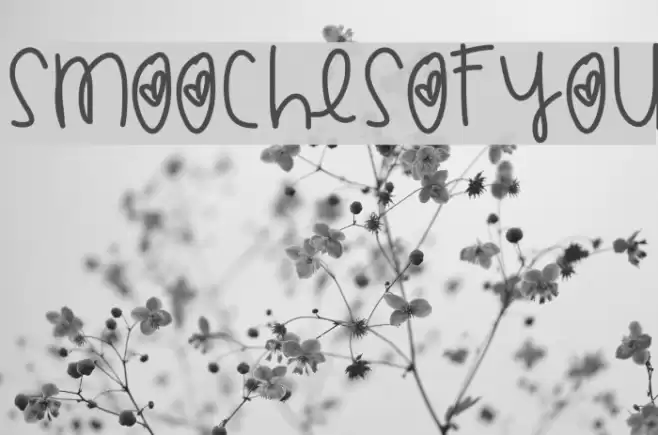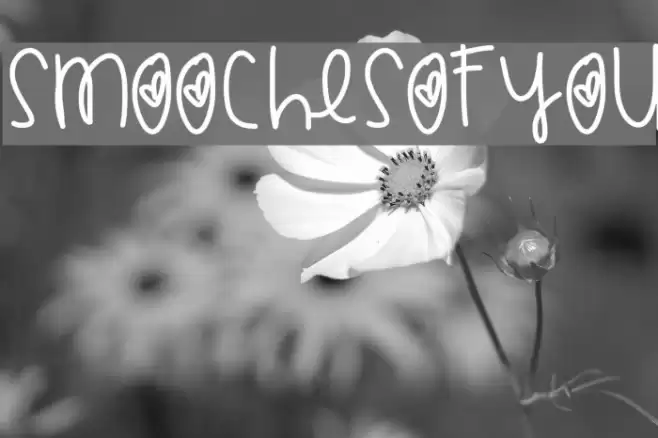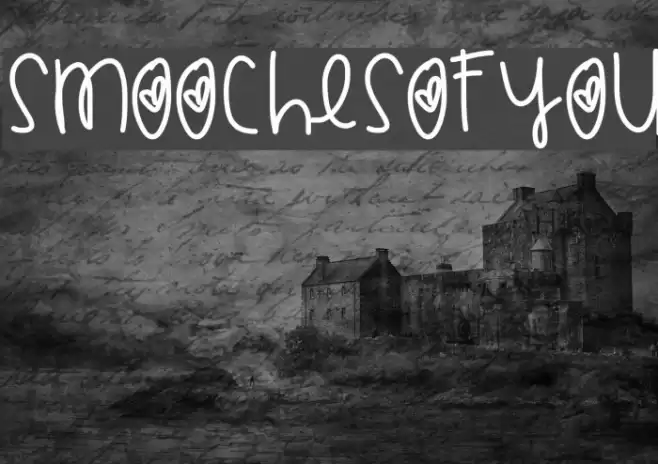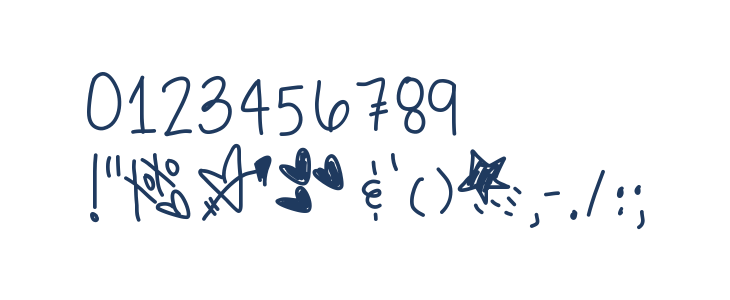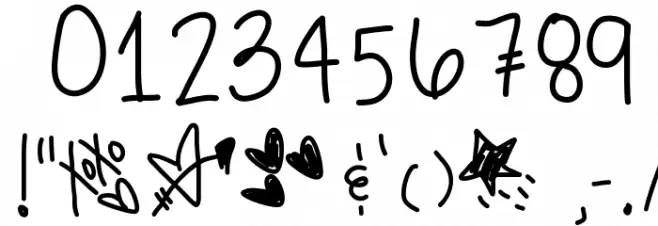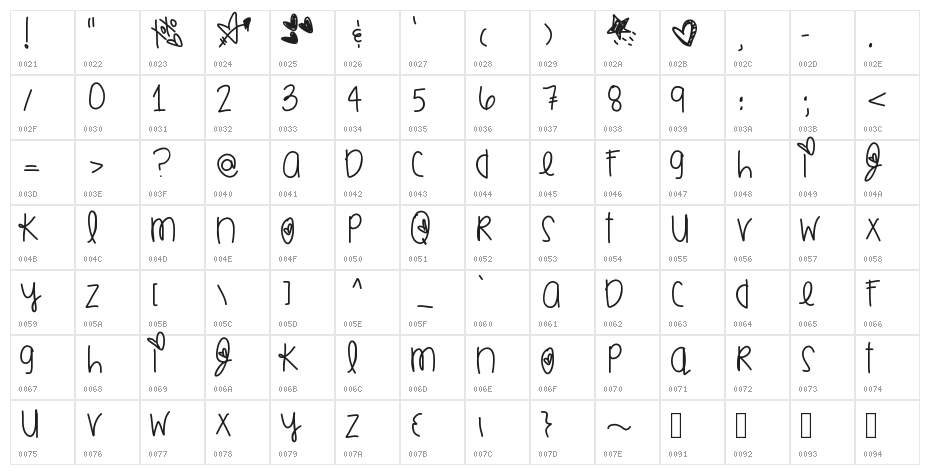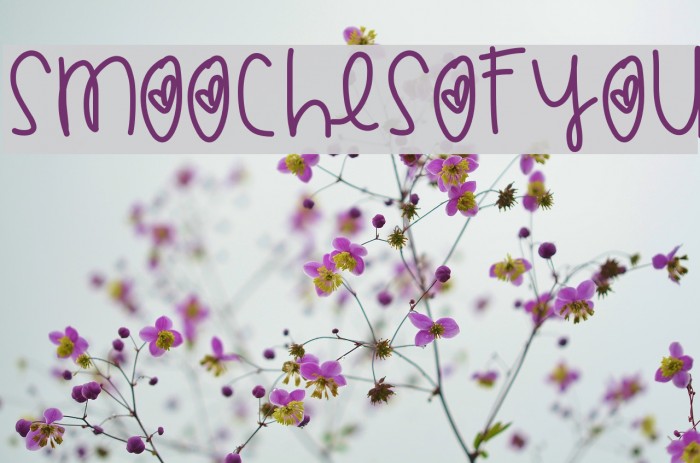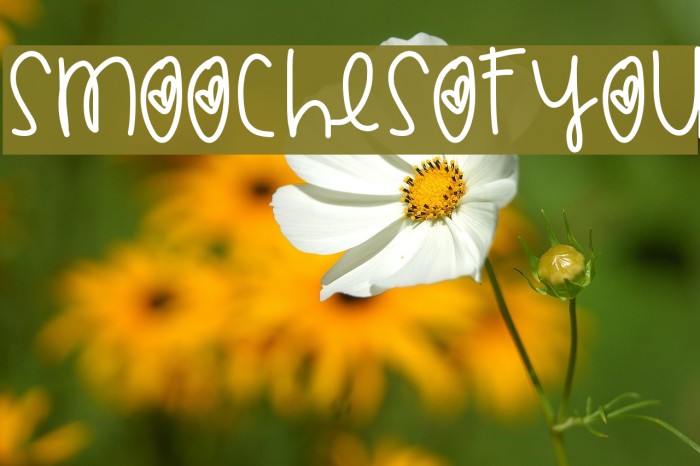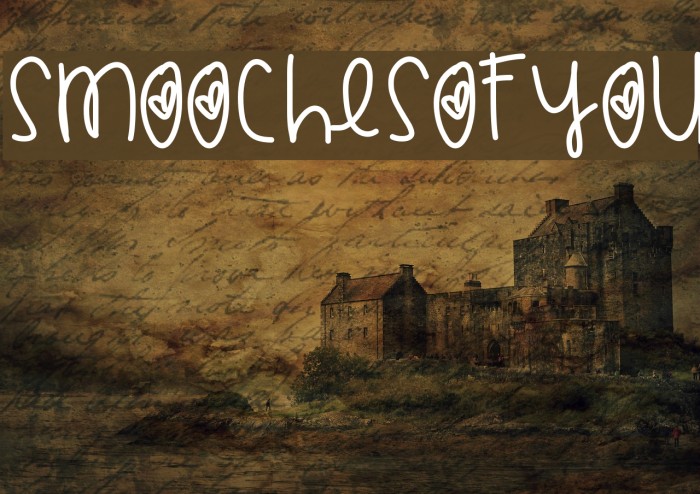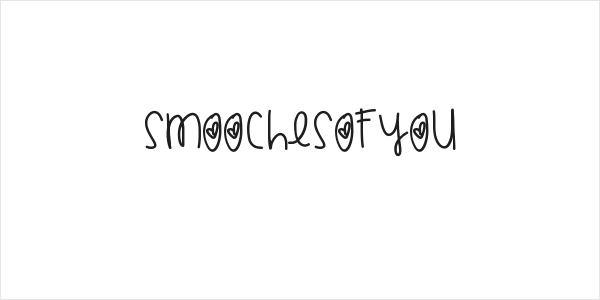
SmoochesOfYou Font
SmoochesOfYou Description
This playful and whimsical font features a handwritten style with charming heart embellishments integrated into certain characters, such as 'O' and 'Q'. The letters are rounded and slightly irregular, giving them a casual and friendly appearance. The font includes both uppercase and lowercase letters, numbers, and a variety of special characters, each maintaining the same playful aesthetic. The strokes are consistent in width, contributing to a uniform look across all characters. The overall style is informal and fun, making it suitable for creative and lighthearted projects.
A playful handwritten font with heart embellishments and a casual, friendly style from Handwritten fonts.
- Proposed Projects: Ideal for greeting cards, children's books, playful branding, and social media graphics.
- Use Case: Logos, Headlines, Social media graphics